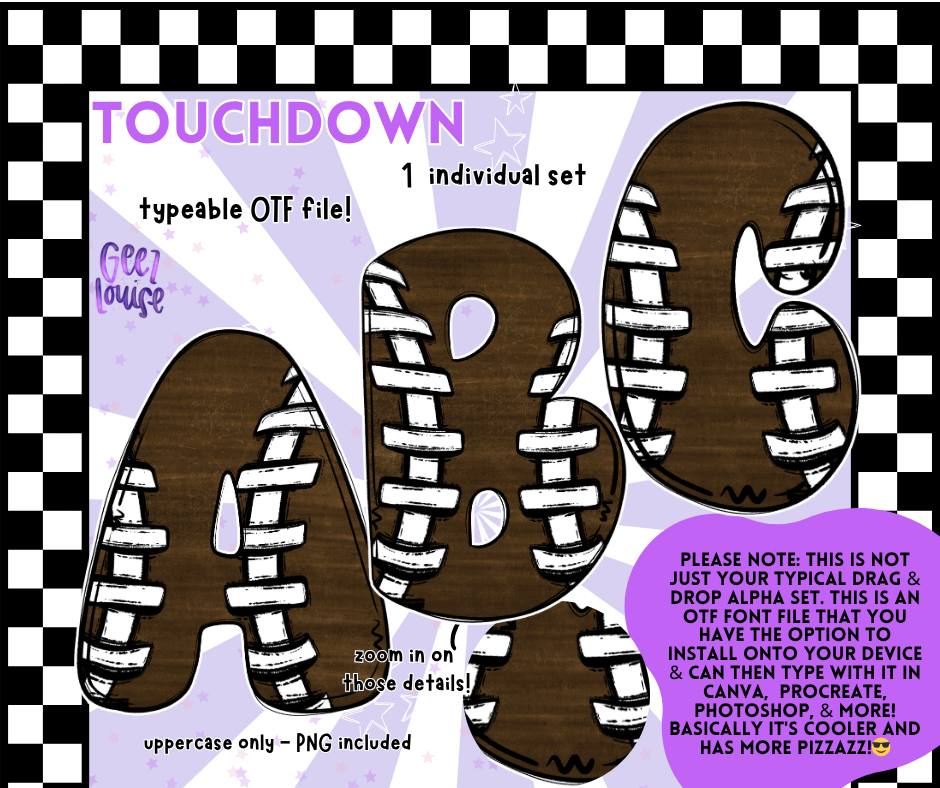
TOUCHDOWN Football Stitch Alpha – OTF Font & PNG Set
Bring your game day designs to life with the TOUCHDOWN Football Stitch Alpha! This bold, uppercase-only OTF font features a stitched football design that’s perfect for sports-themed graphics, team spirit shirts, tailgate invites, and more.